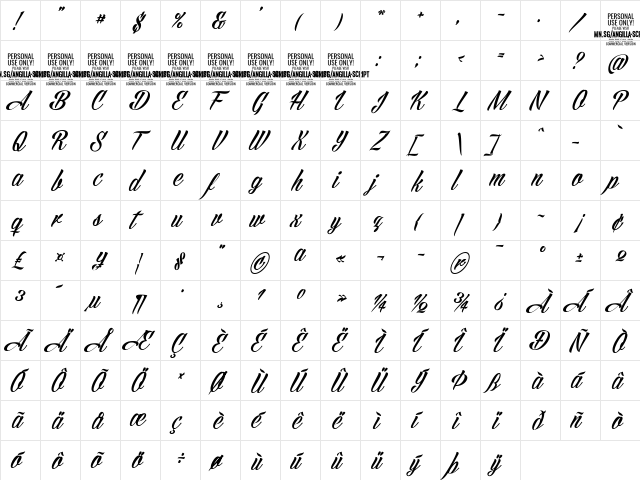
Angilla Script PERSONAL USE Regular
| Foundry | M?ns Greb?ck |
| Designer | Mans Greback |
Design Context for Angilla Script PERSONAL USE Typeface
Angilla Script PERSONAL USE brings a calligraphic fluidity to the page — its connecting strokes and expressive curves give it an unmistakably human quality.